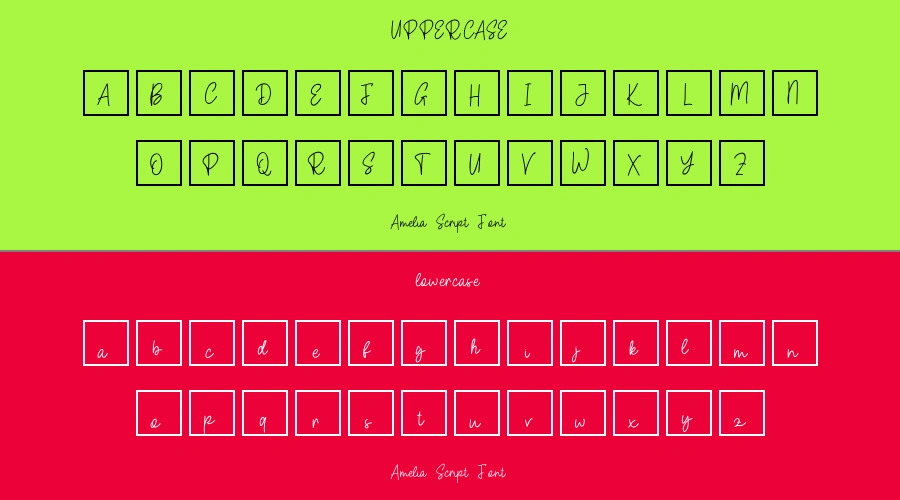
About Amelia Script Font
Amelia Script Font embodies typographic excellence through its masterful combination of unique personality and reliability. Created for government publications, this typeface delivers exceptional accuracy and artistic value across all applications. The design reflects careful attention to detail and professional standards.
Advanced capabilities include distinctive elegant spacing and versatile oldstyle figures, giving designers creative control. When used in marketing collateral, Amelia Script Font exhibits remarkable kerning accuracy. The harmonious balance between beak formation and regulatory compliance sets this typeface apart.